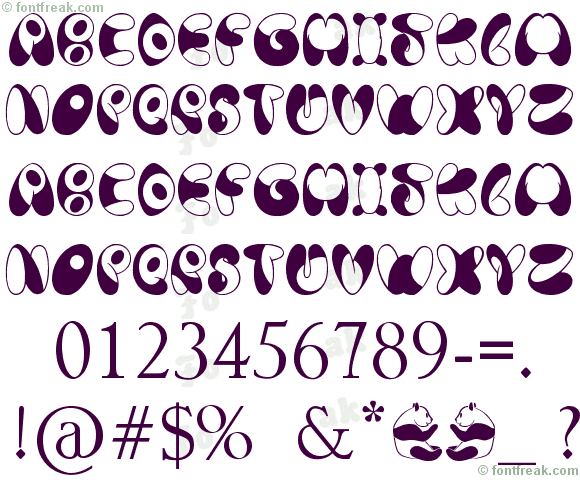
Panda Spots
Panda Spots, designed by Jonathan S. Harris in 2012, is a unique decorative font that captivates with its playful and whimsical design. This font features a distinctive style characterized by rounded, blob-like shapes that evoke the charming appearance of panda spots. With its bold stroke weight and minimal contrast, Panda Spots offers a friendly and approachable aesthetic, making it perfect for various creative projects. The spacing between characters is thoughtfully crafted, ensuring legibility while maintaining a fun vibe. The playful nature of the font is further enhanced by its decorative elements, which add an extra layer of charm.
This font is ideal for a range of applications, including children's book covers, vibrant event flyers, and eye-catching restaurant menus. Its whimsical nature also makes it a great fit for branding projects targeting a younger audience or businesses focused on fun and creativity. Graphic designers and content creators will find Panda Spots particularly appealing, as it allows them to inject personality into their work while maintaining readability.
Whether you're crafting a playful logo, designing a unique poster for a local event, or creating engaging social media graphics, the Panda Spots font free download provides an excellent opportunity to bring a touch of whimsy to your designs. Its versatility and distinctive appearance make it a standout choice for anyone looking to infuse their projects with a sense of joy and creativity. With its charming aesthetic and functional design, Panda Spots is sure to become a go-to font for those seeking to make a memorable impression in their visual communications.